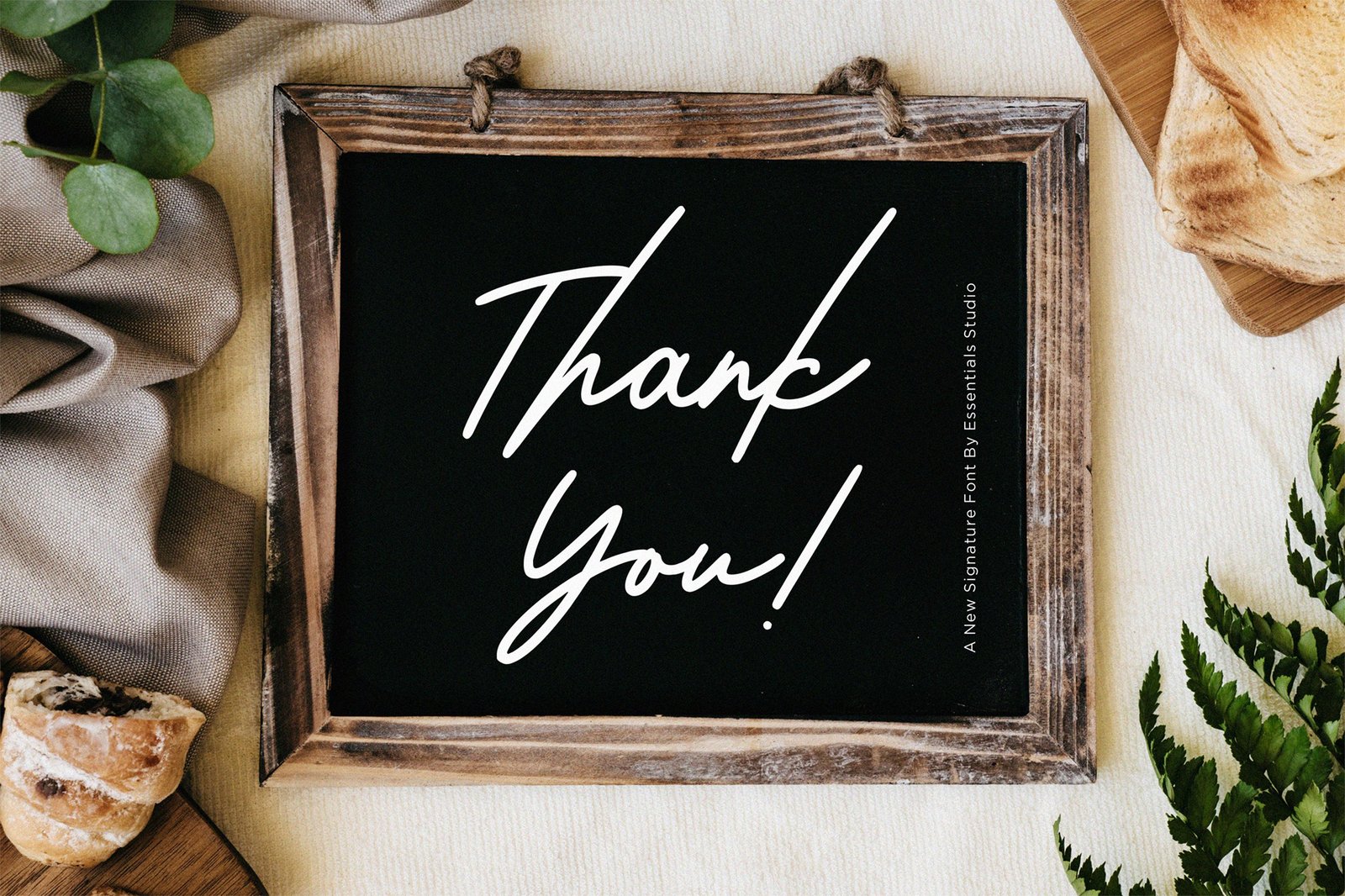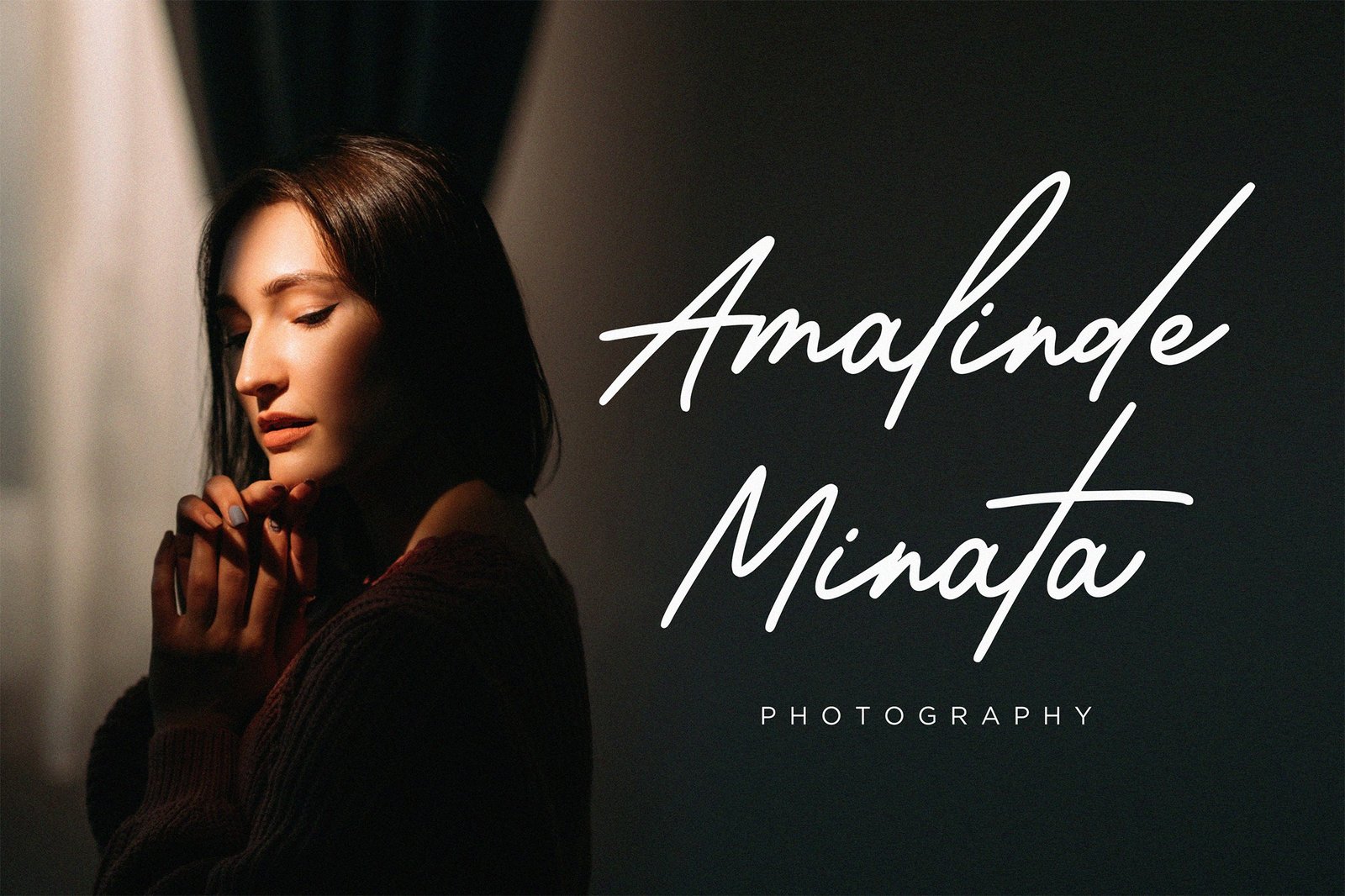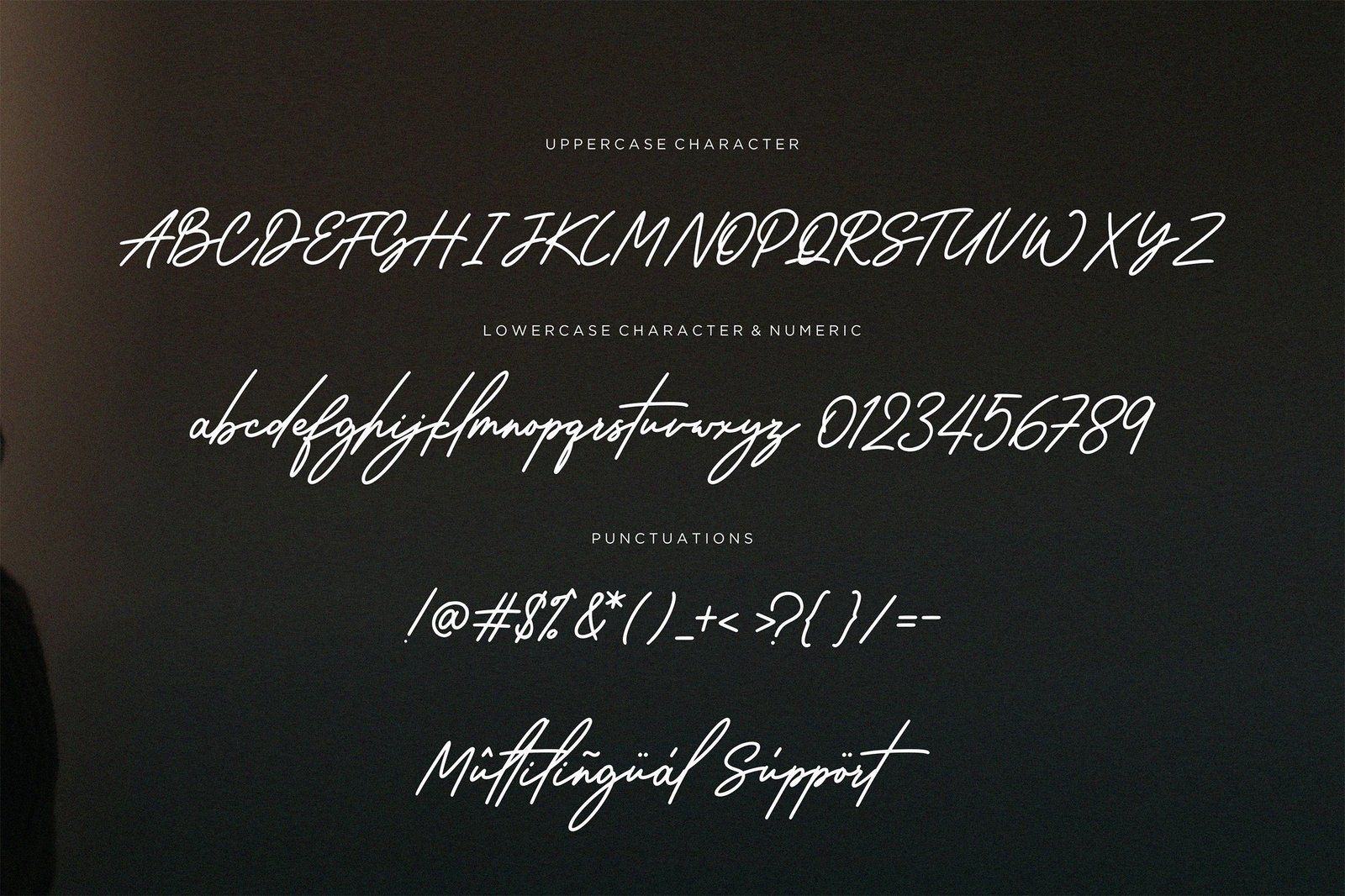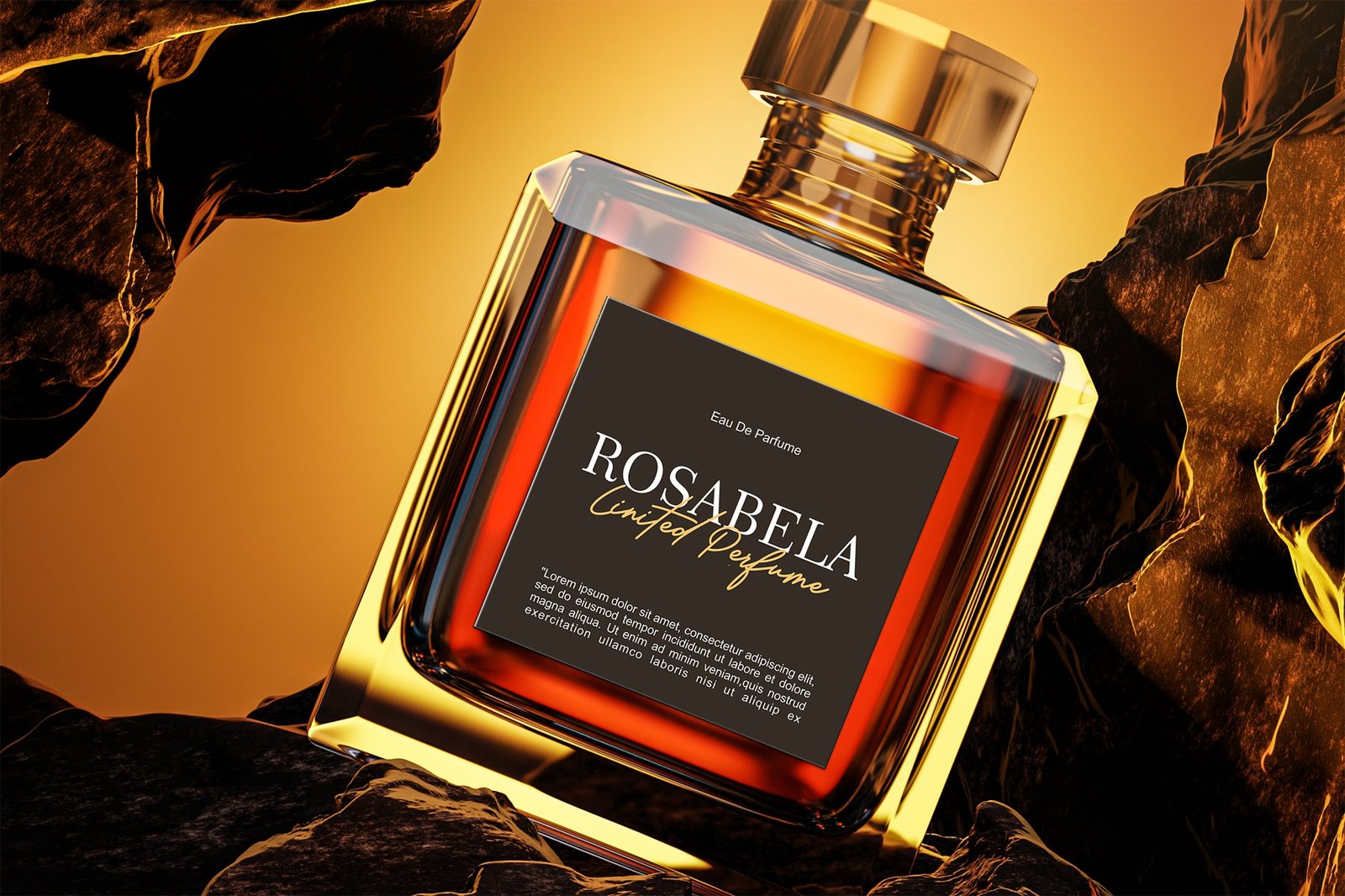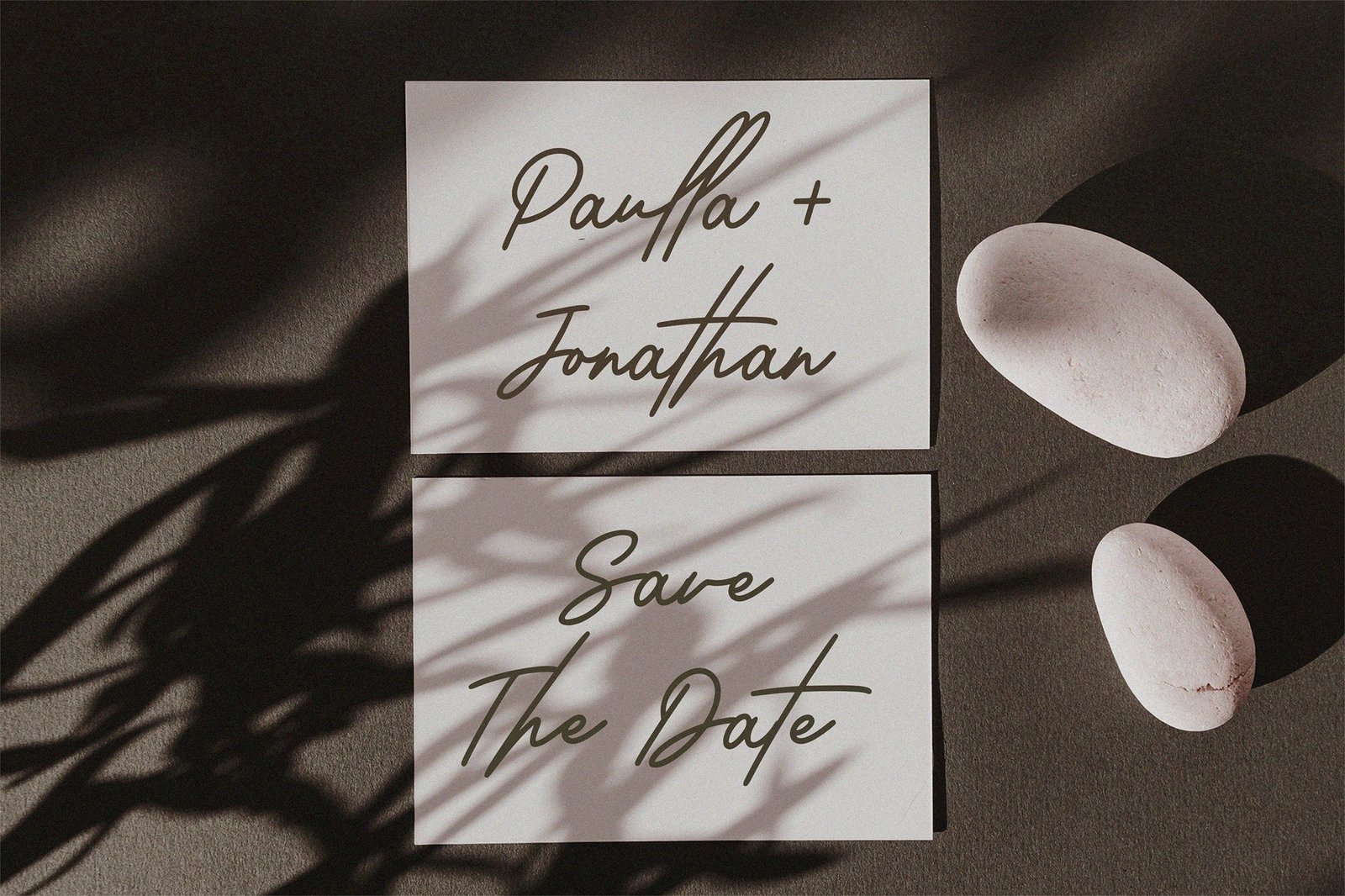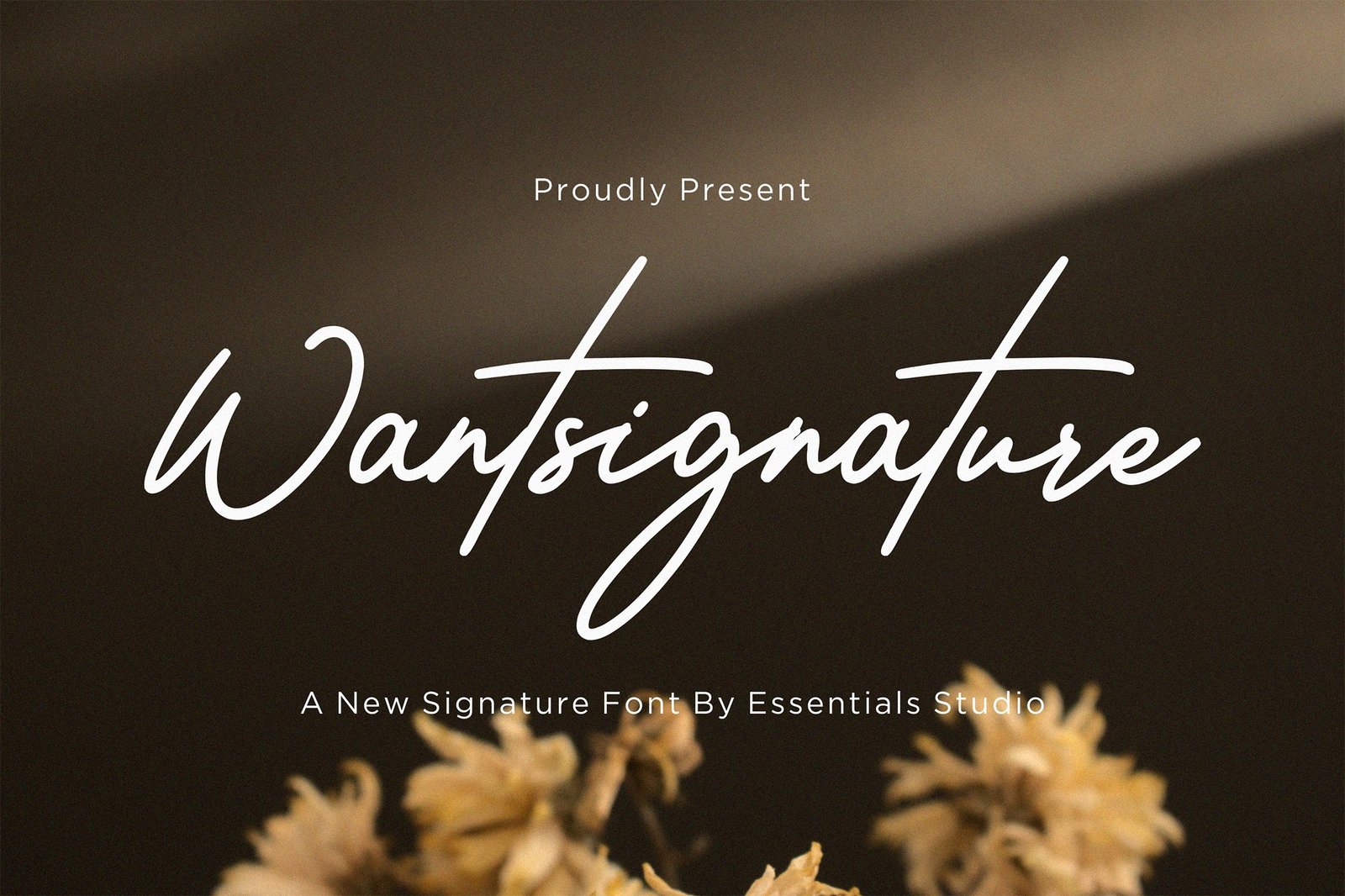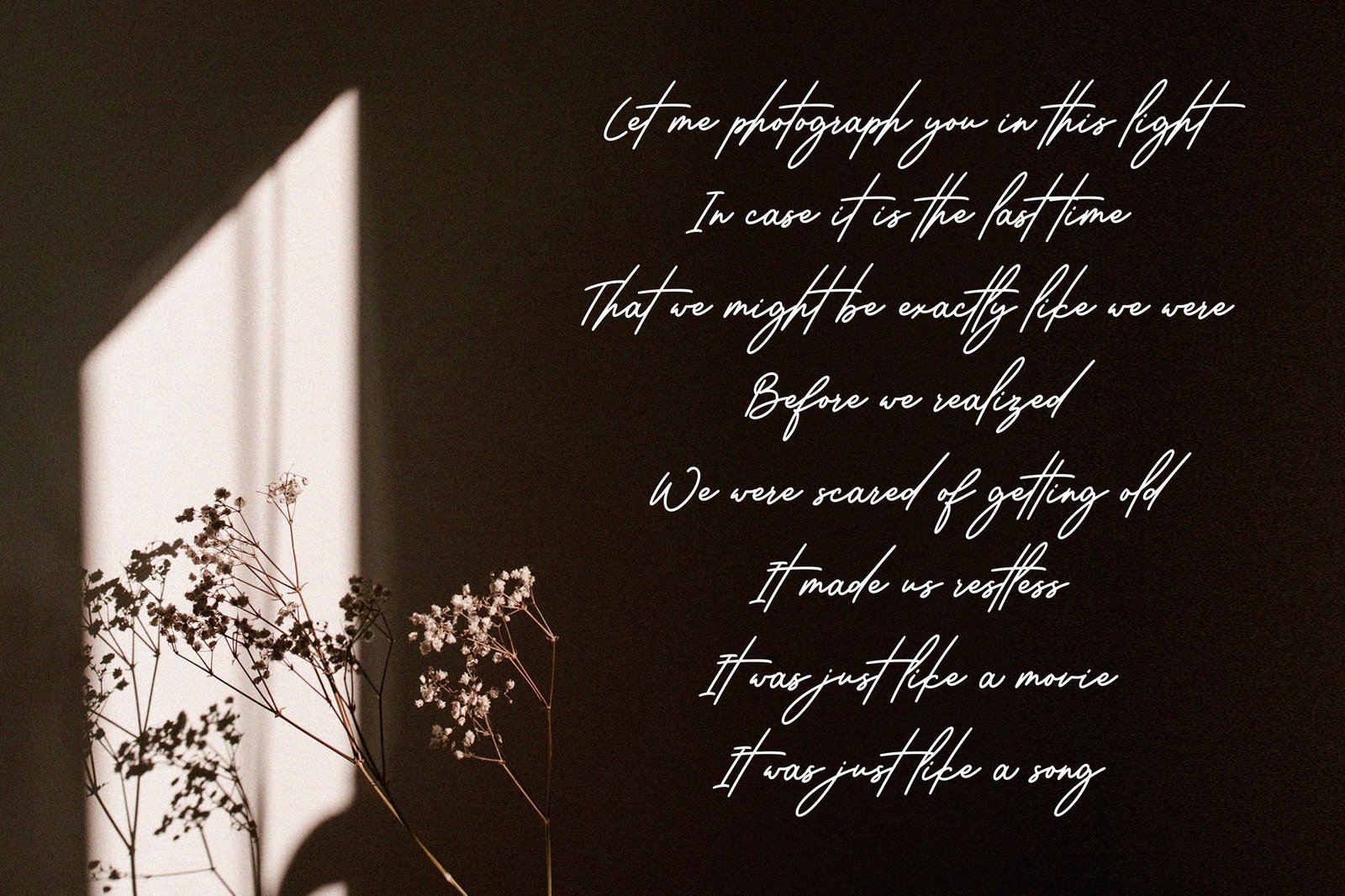
Wantsignature - Elegant Monoline signature Font
Wantsignature is a stylish, luxurious signature font. It is perfect for product packaging, branding projects, magazines, social media, weddings, and more.